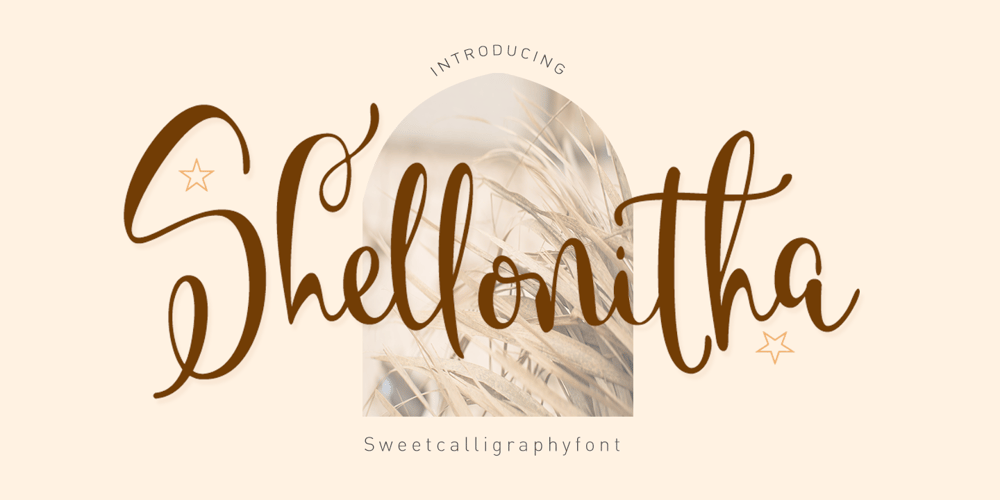
Shellonitha Font Family was designed by Niza Fahmi and published by Fran Studio. Shellonitha contains 2 styles and family package options. Shellonitha is a lovely, modern calligraphic script. It features dynamic and pretty swashes and can be used for many purpose, such as titles, signatures, logos, wedding invitations, letterhead, signage, labels, newsletters, posters, badges, etc.Shellonitha features OpenType, including the initial and terminal letters, ligatures and International support for most Western languages included.To activate OpenType Stylistic alternative, you need a program that supports OpenType features such as Adobe Illustrator CS, Adobe Indesign and CorelDraw X6-X7, Microsoft Word 2010 or later.How to access all of the alternate characters, using the Windows Character Map to Photoshop:https://www.youtube.com/watch?v=Go9vacoYmBwHow to access all of the alternate character using Adobe Illustrator:http://youtu.be/iptSFA7feQ0nnHow to use stylistic sets font in Microsoft Word 2010 or later versions:https://youtu.be/x1A_ilsBsGsShellonitha PUA encoded with Unicode, which allows full access to all the extra characters without having to design special software. Mac users can use Font Book, and Windows users can use the Character Map to view and copy one additional character to paste into your text editor / favorite applications.Enjoy using